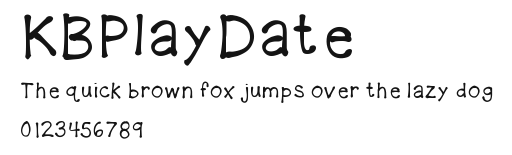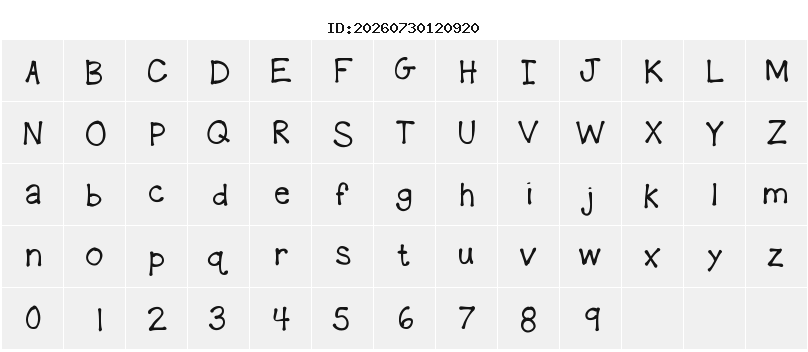
• Font Name: KBPlayDate
About KBPlayDate.ttf
KBPlayDate.ttf is a modern, elegant sans-serif font designed for ultimate readability and visual harmony. Perfect for branding, headlines, web design, and print materials.